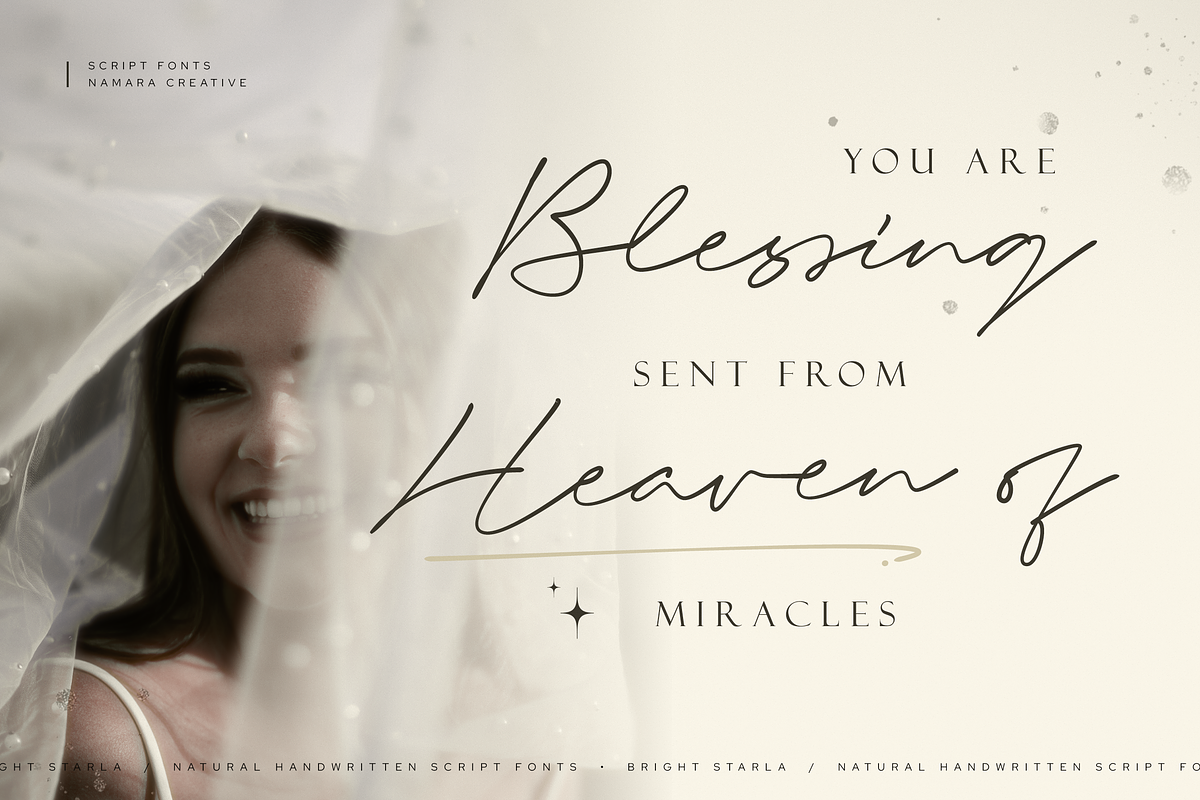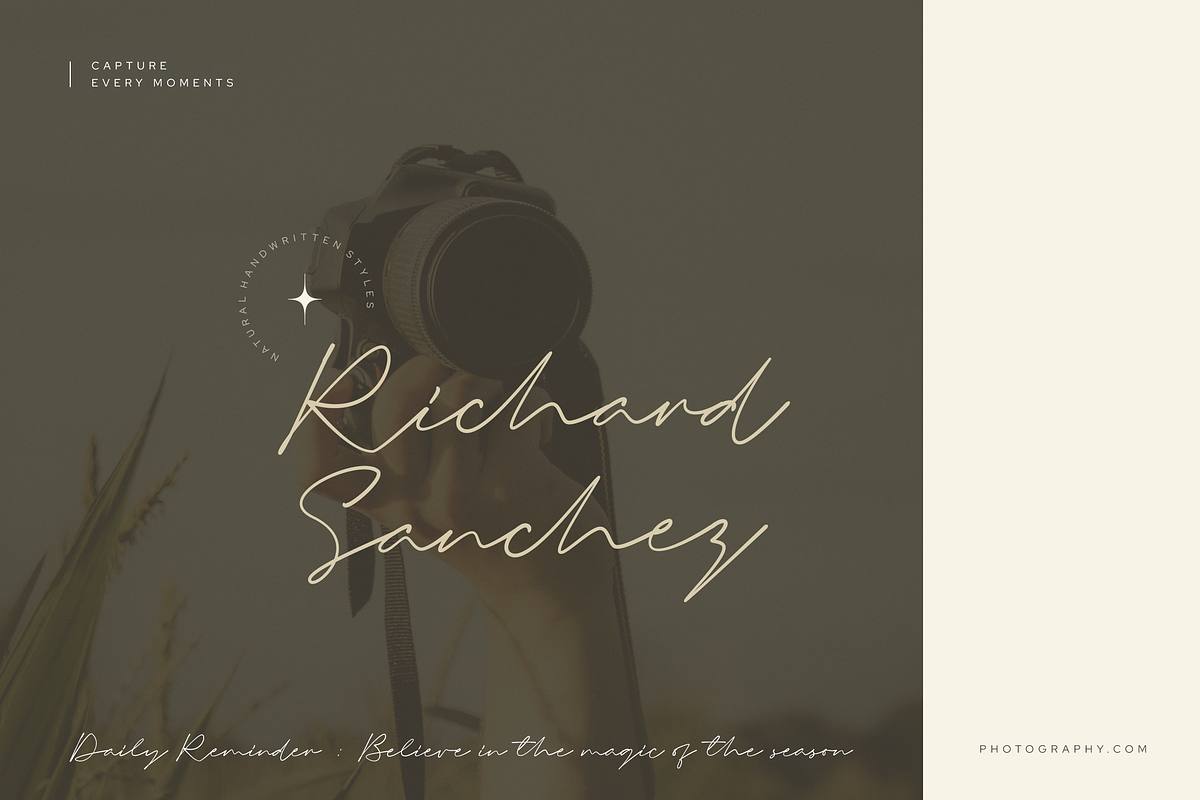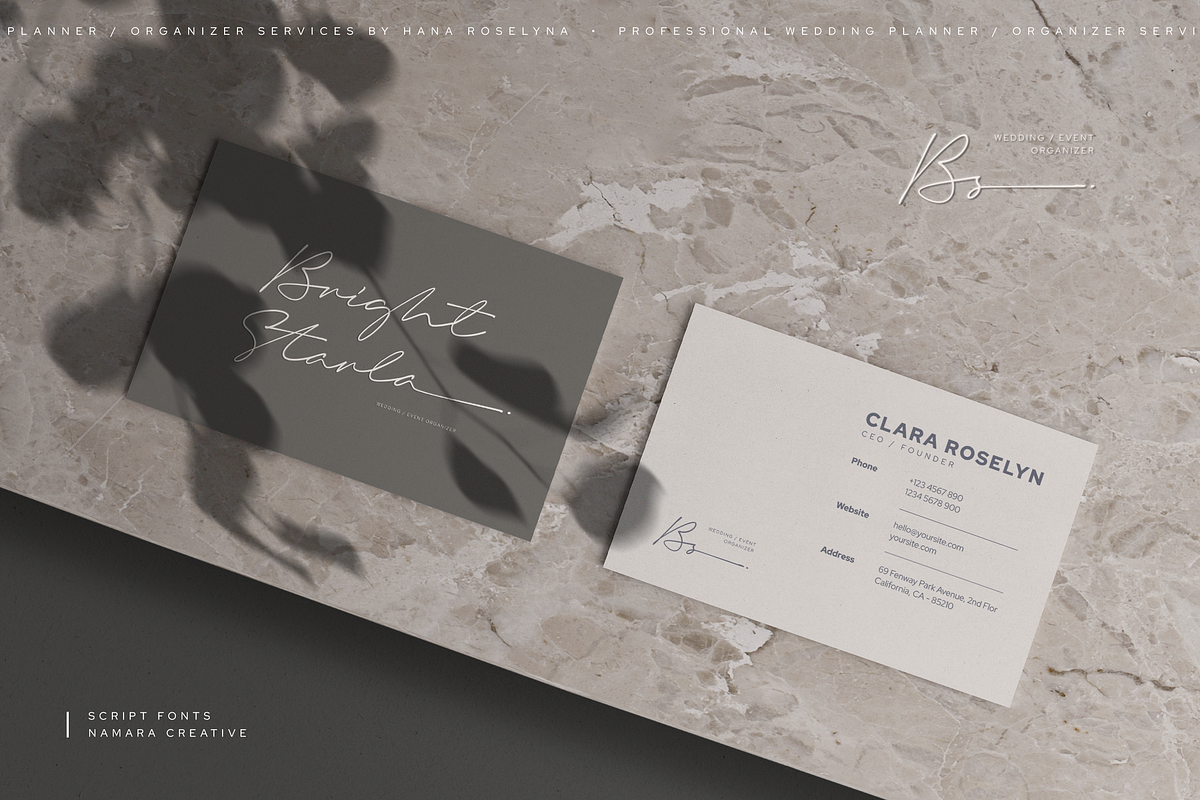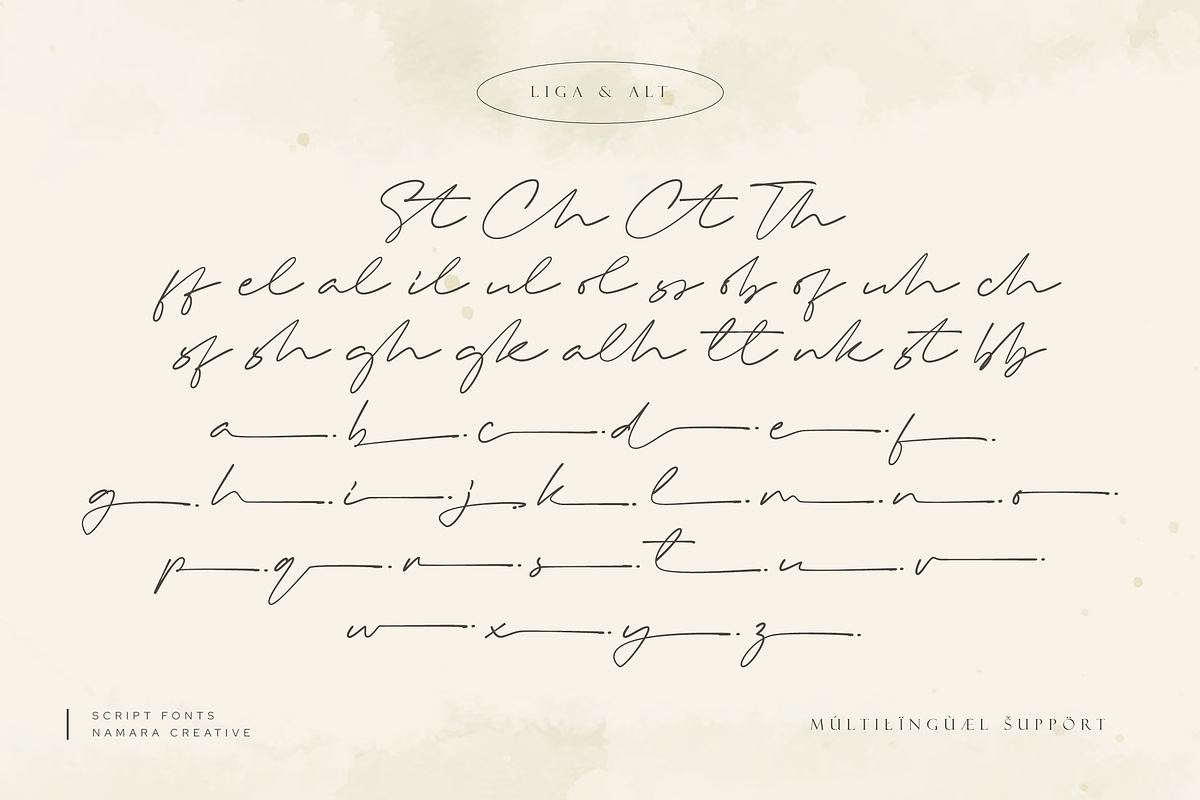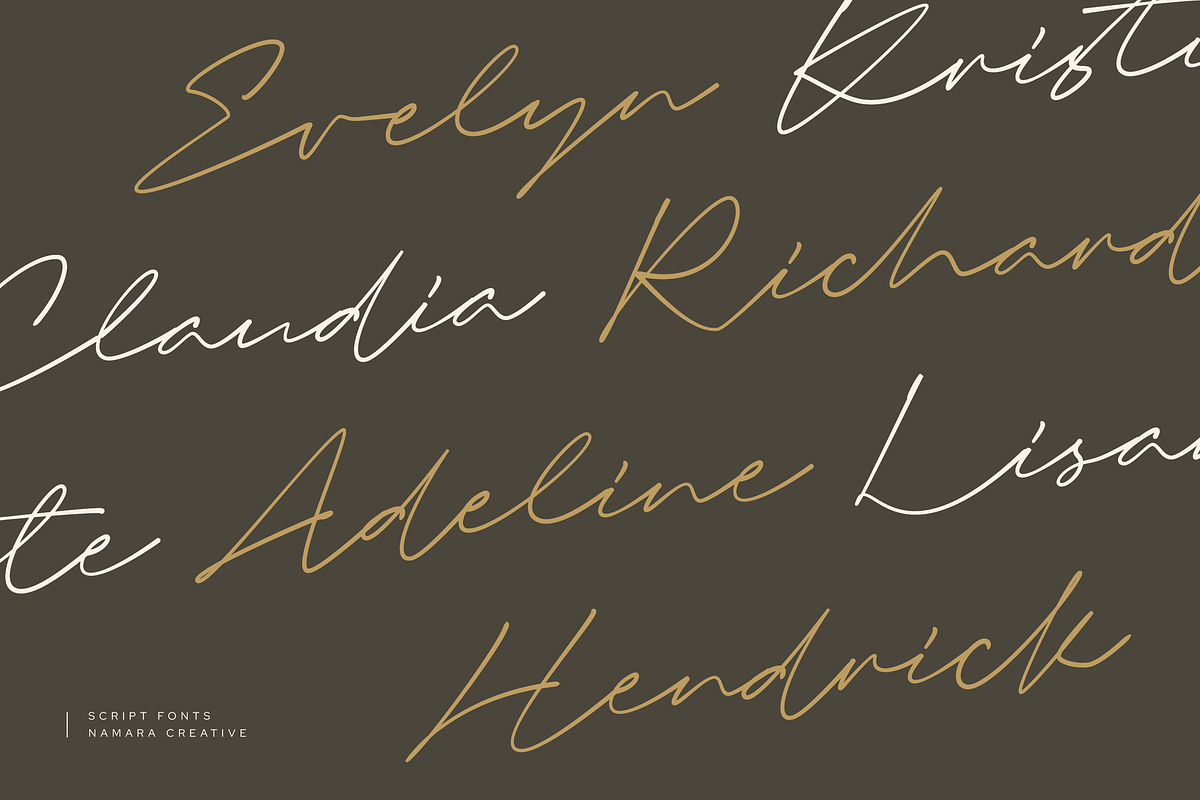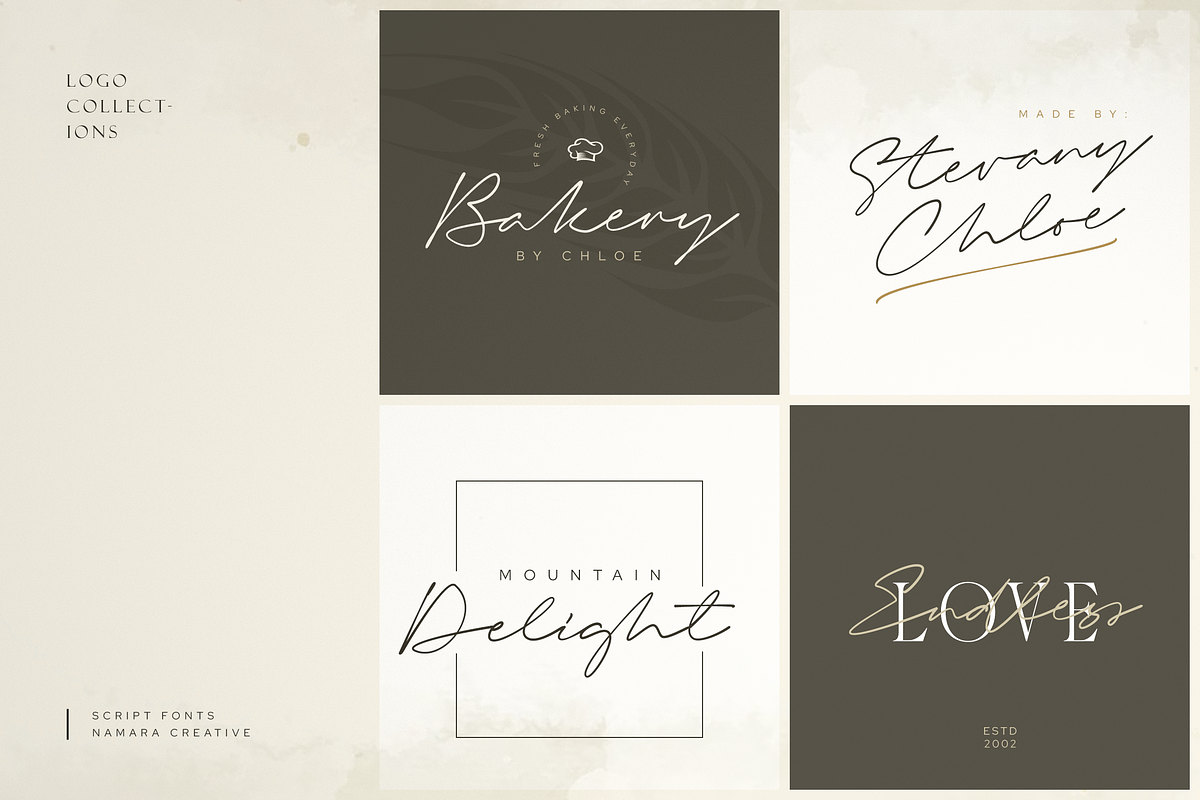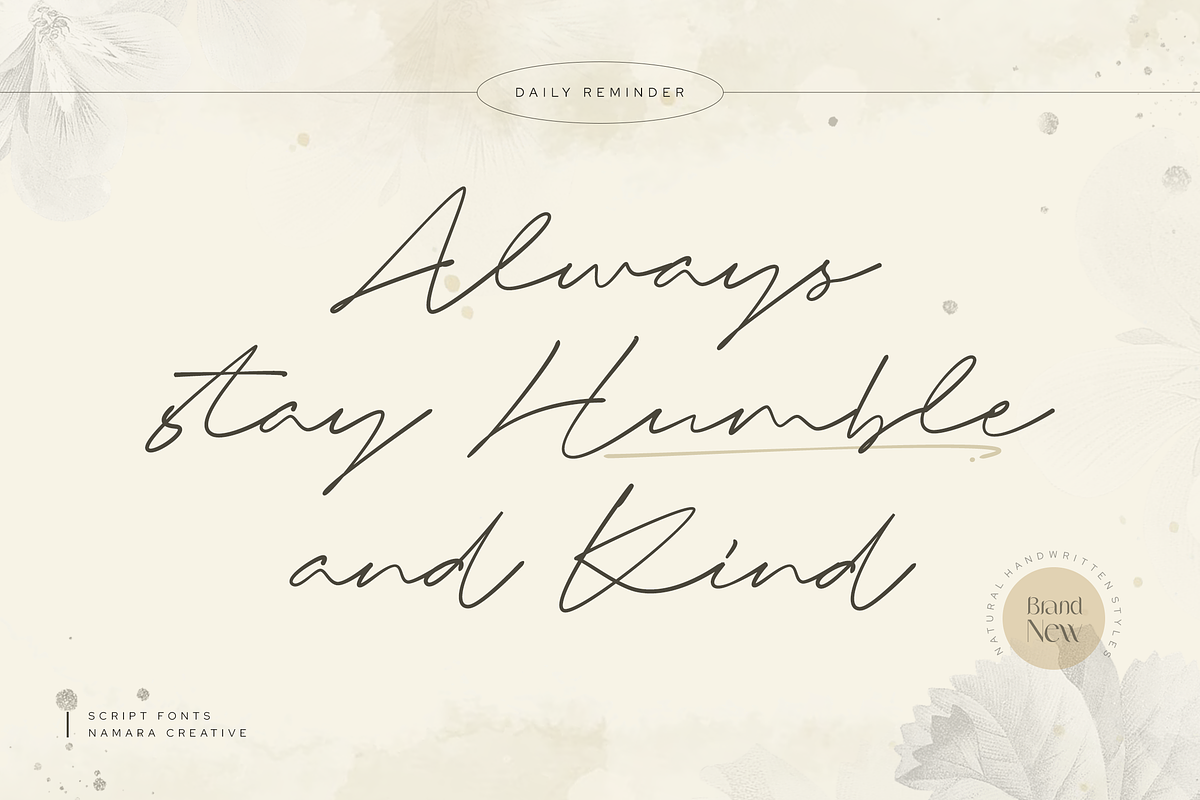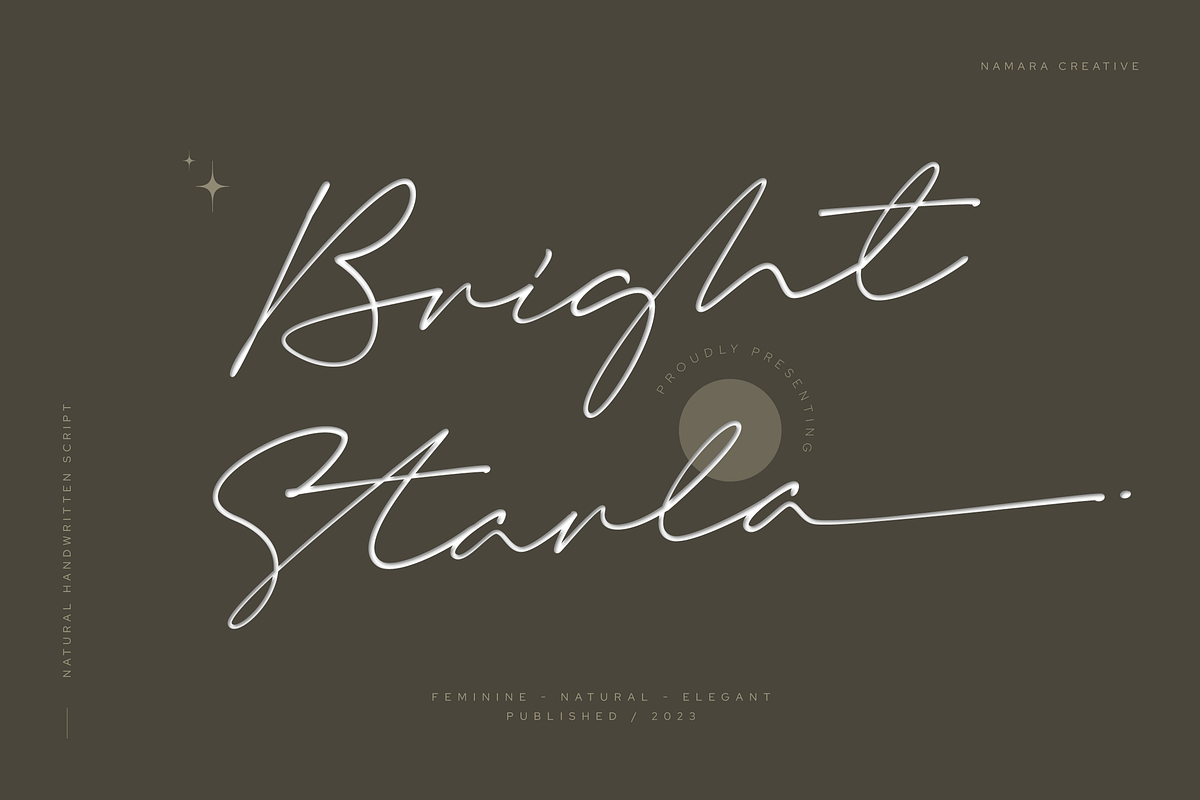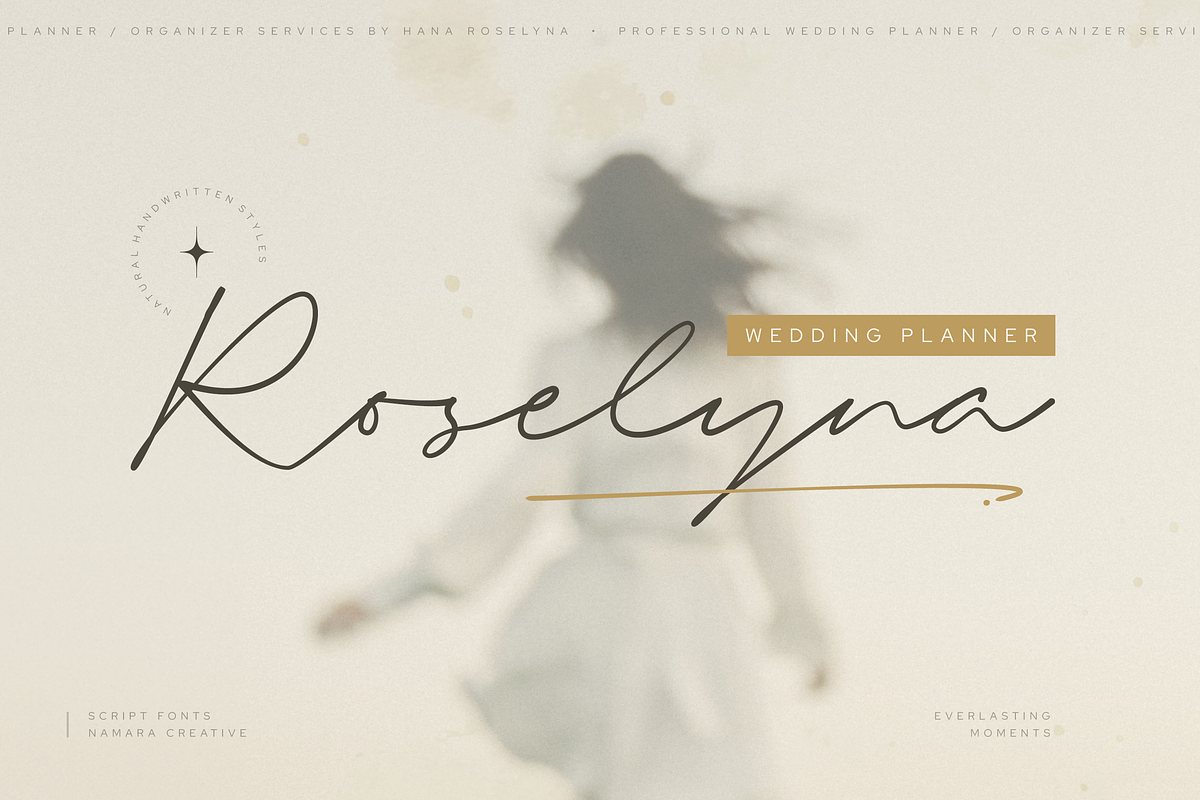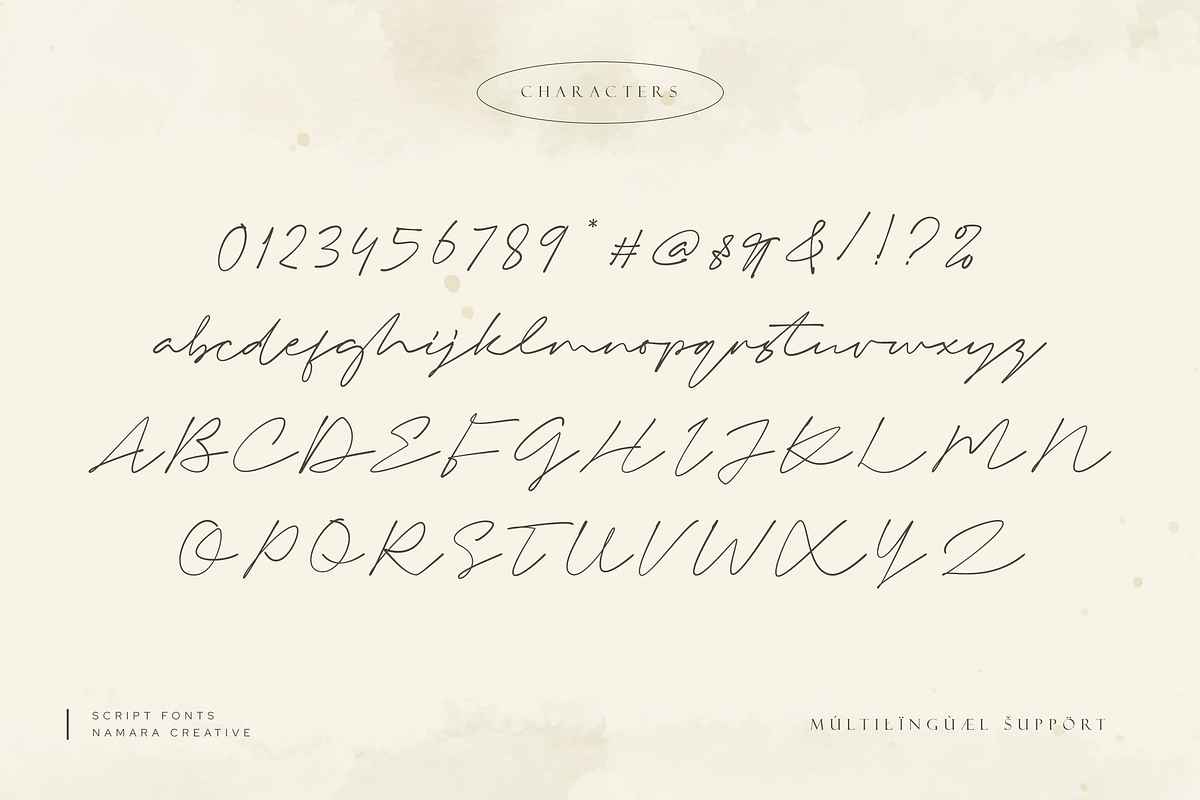
Bright Starla - Handwritten Script
An elegant natural handwritten script that radiates sophistication, grace, and refinement. It’s the perfect choice for creating designs that require a natural handwritten script touch and luxury styles, such as wedding invitations, high-end fashion branding, or luxury product packaging. And also can be use to add a more human and approachable feel, a sense of timelessness, and class to any design project.
- Full Set of standard characters and punctuations.
- Alternates, ligatures and multilingual support characters.